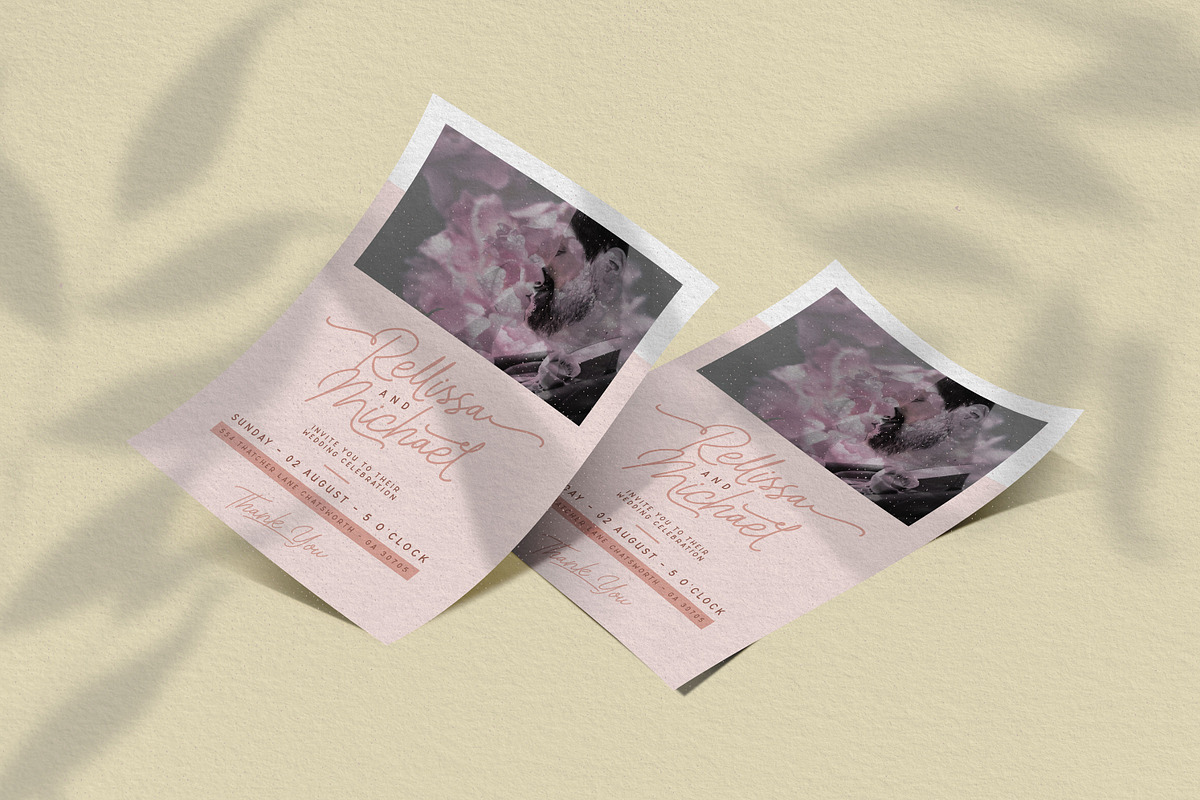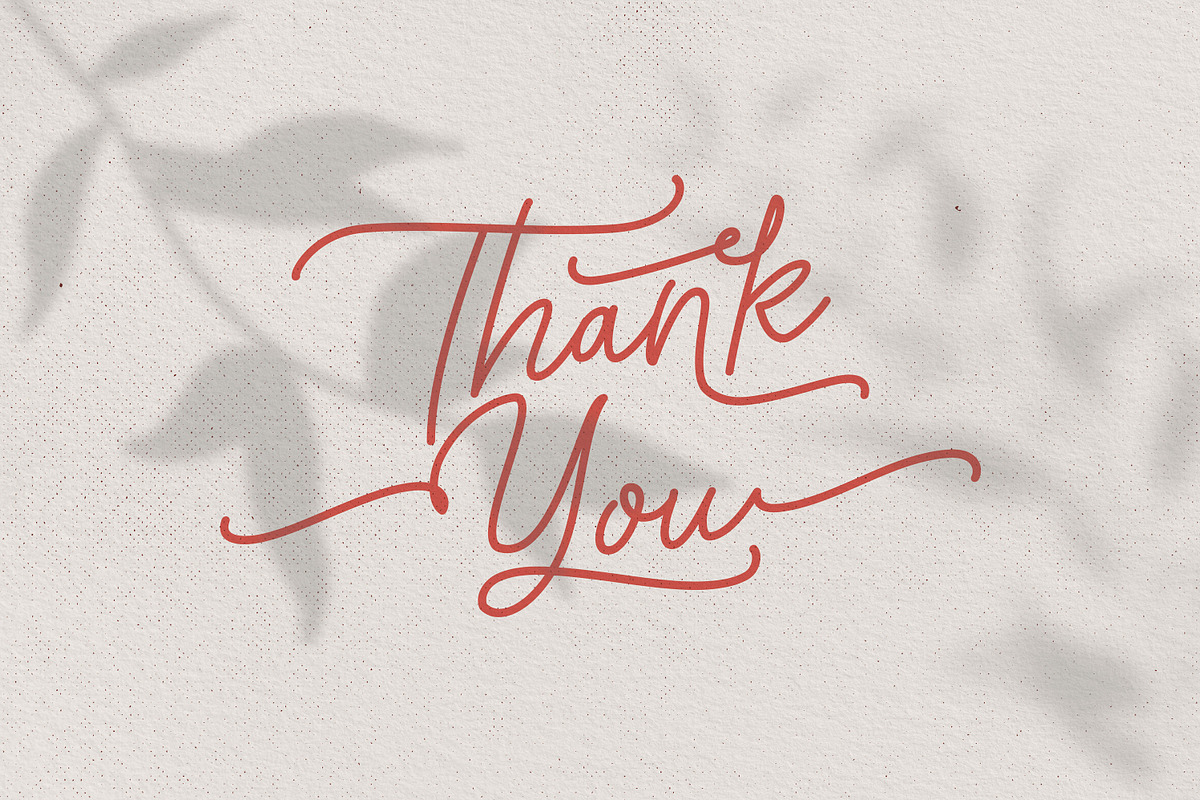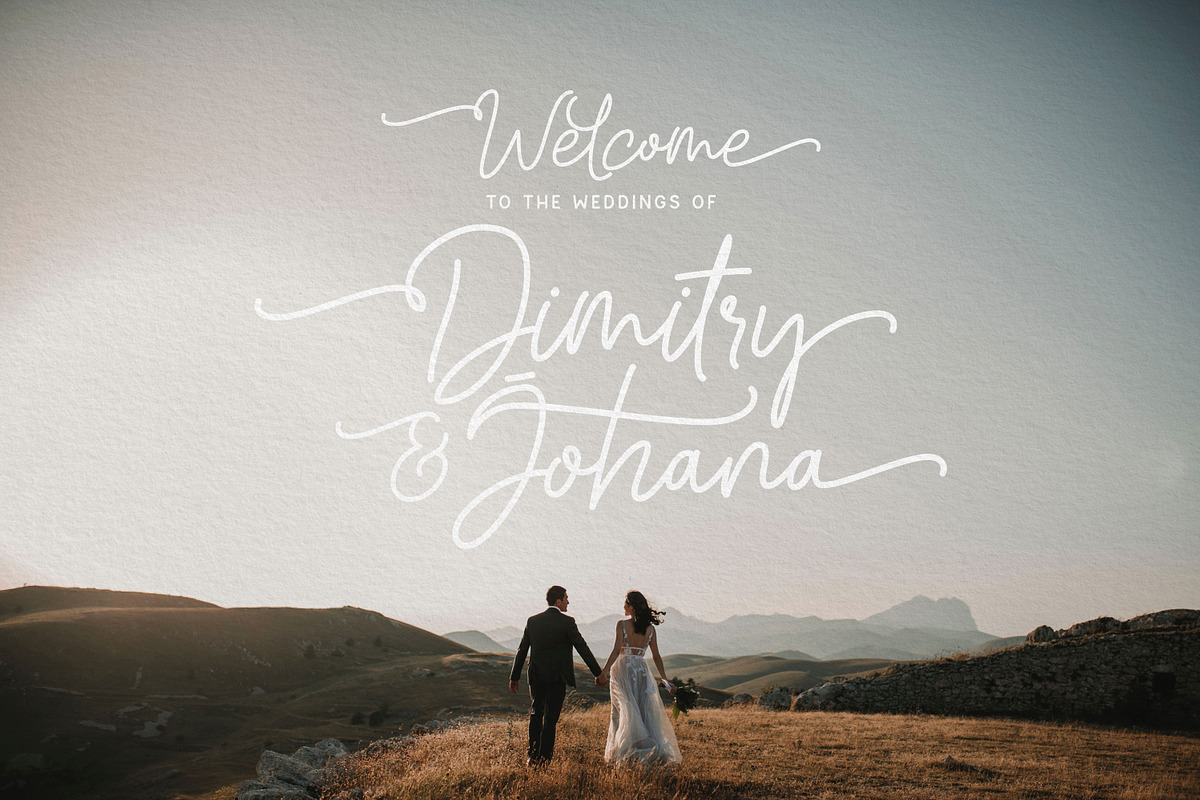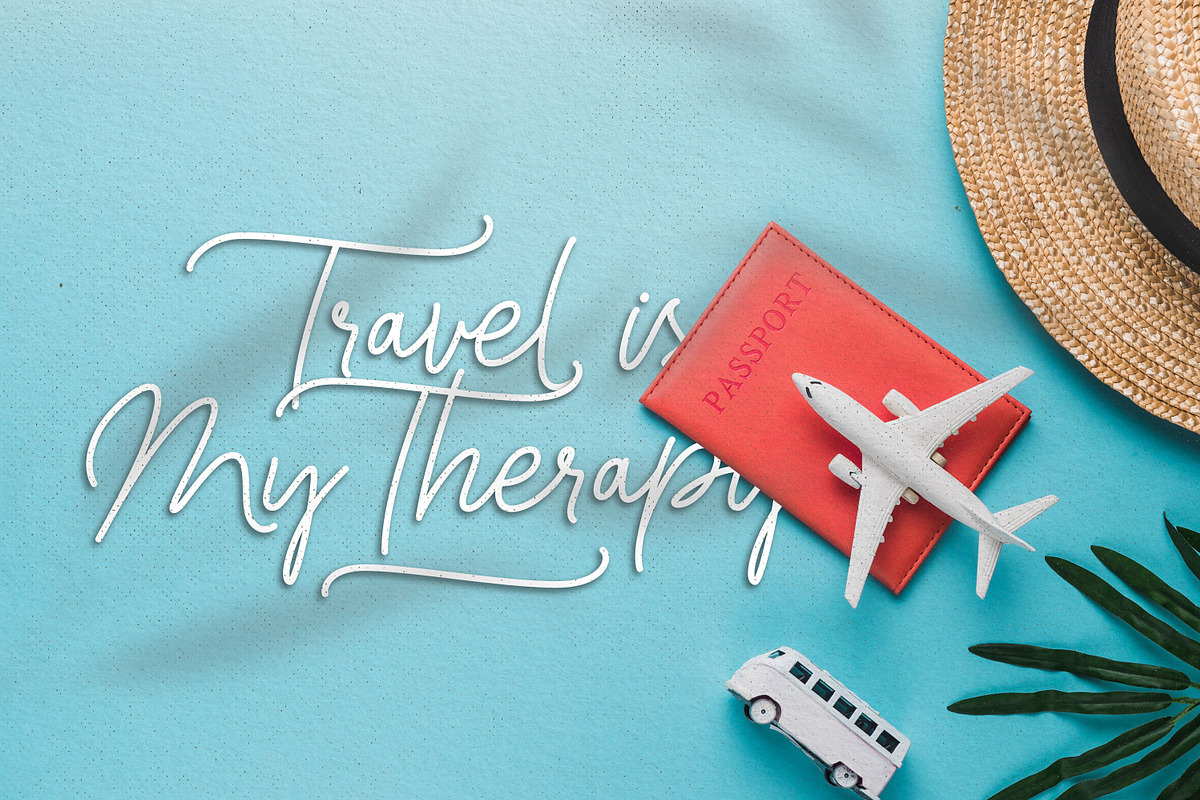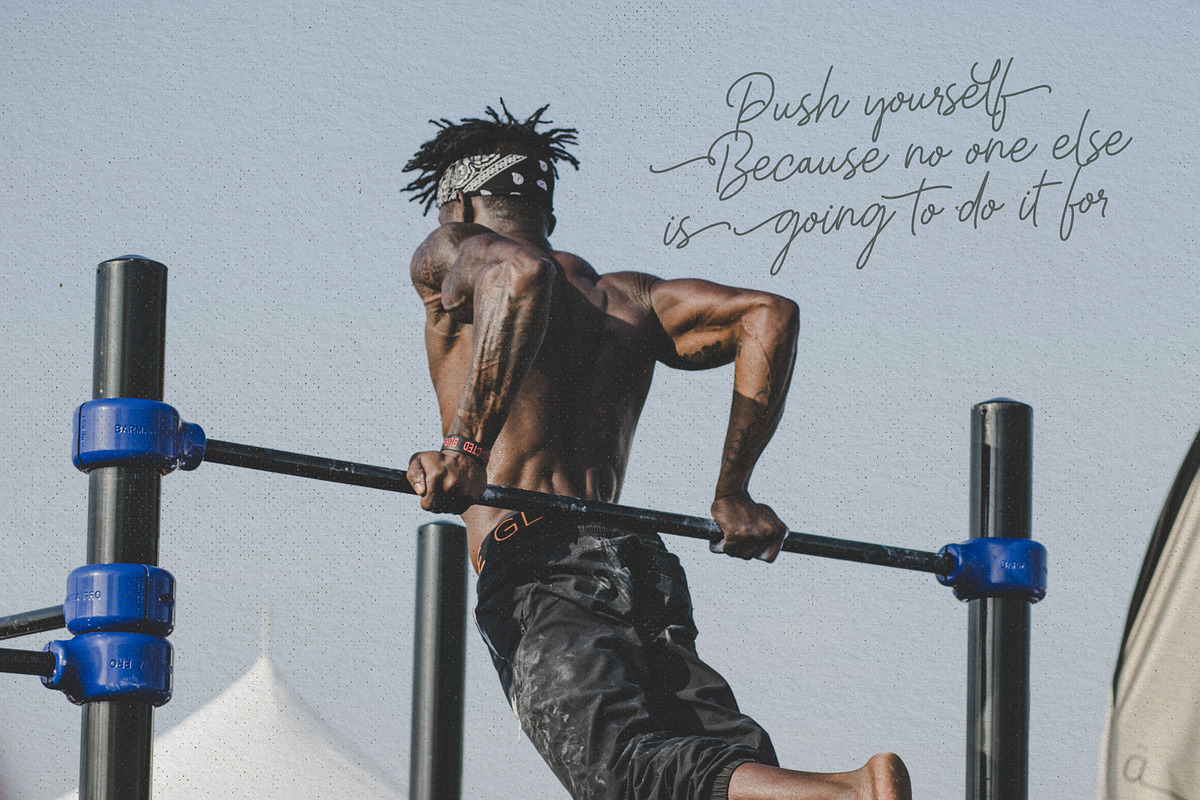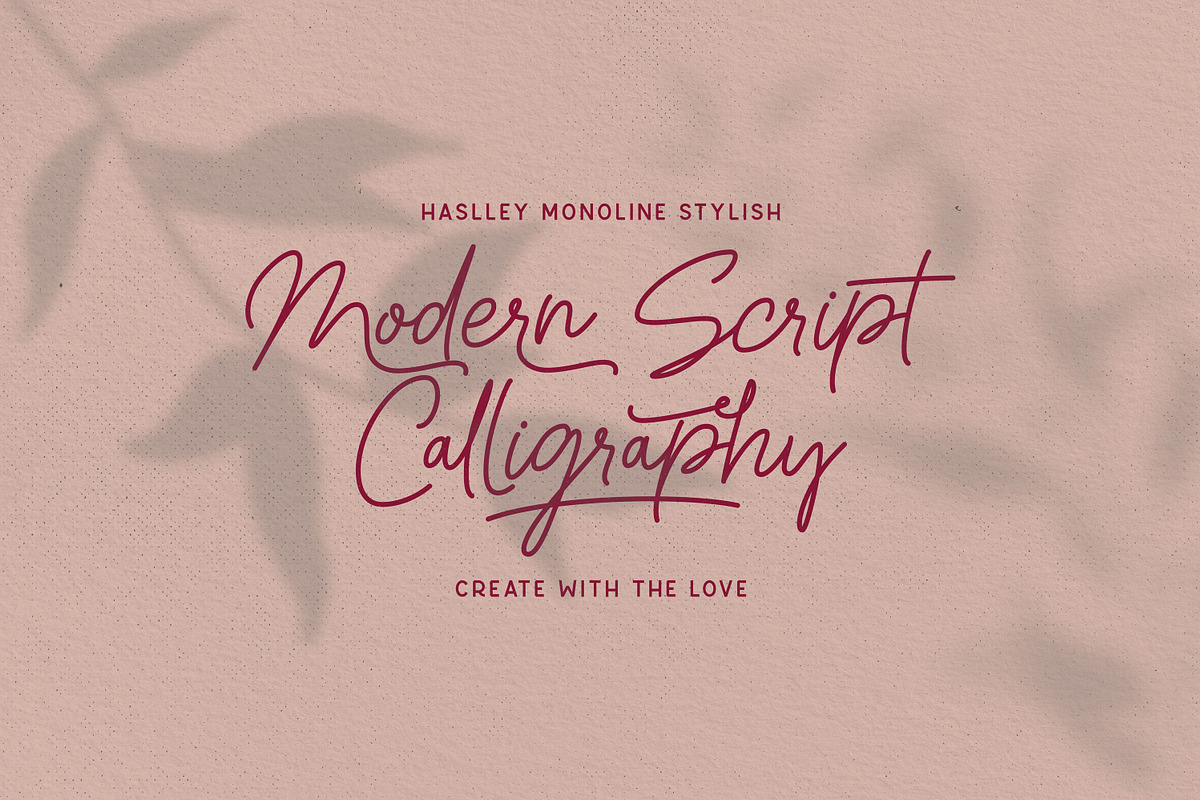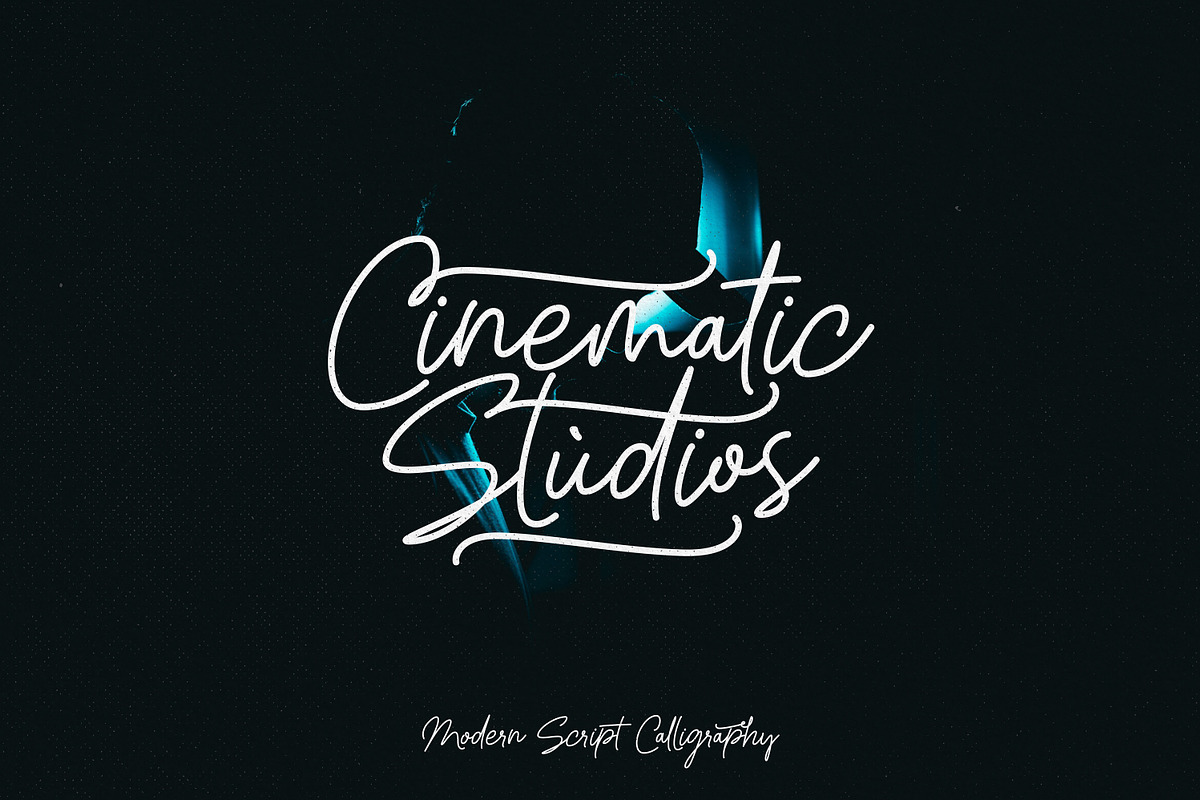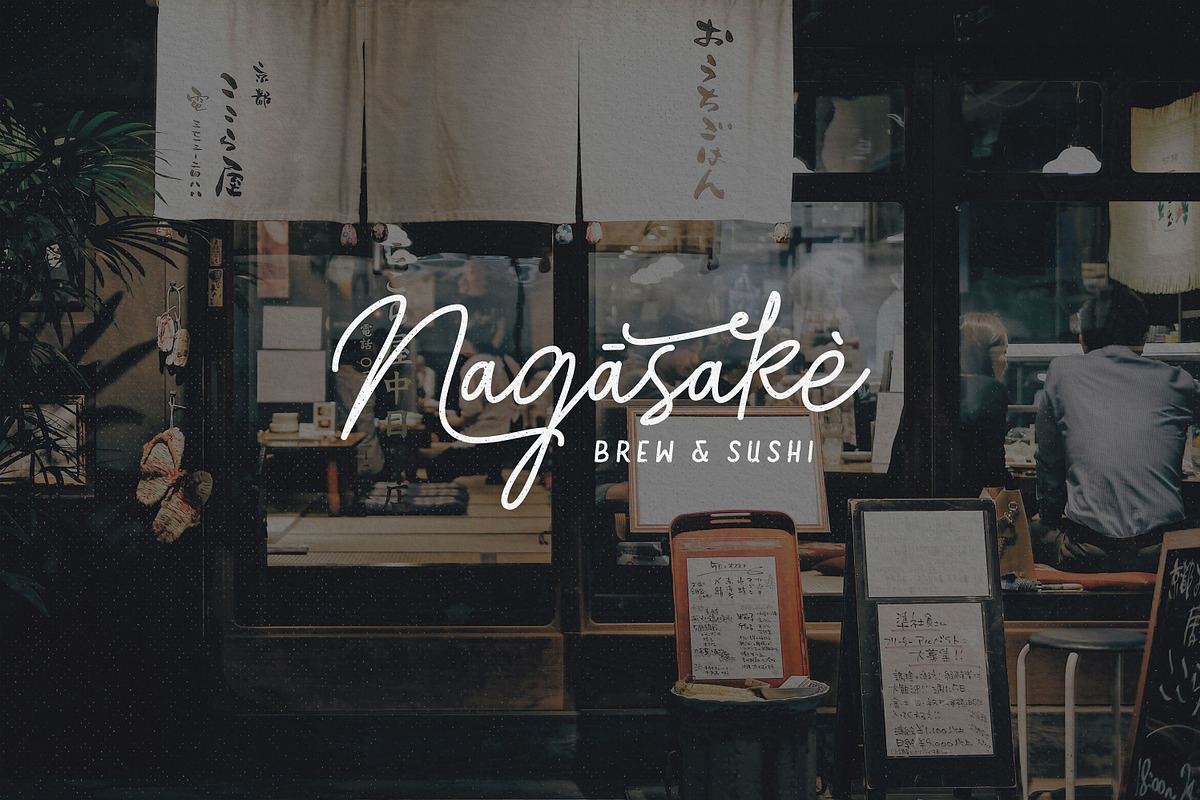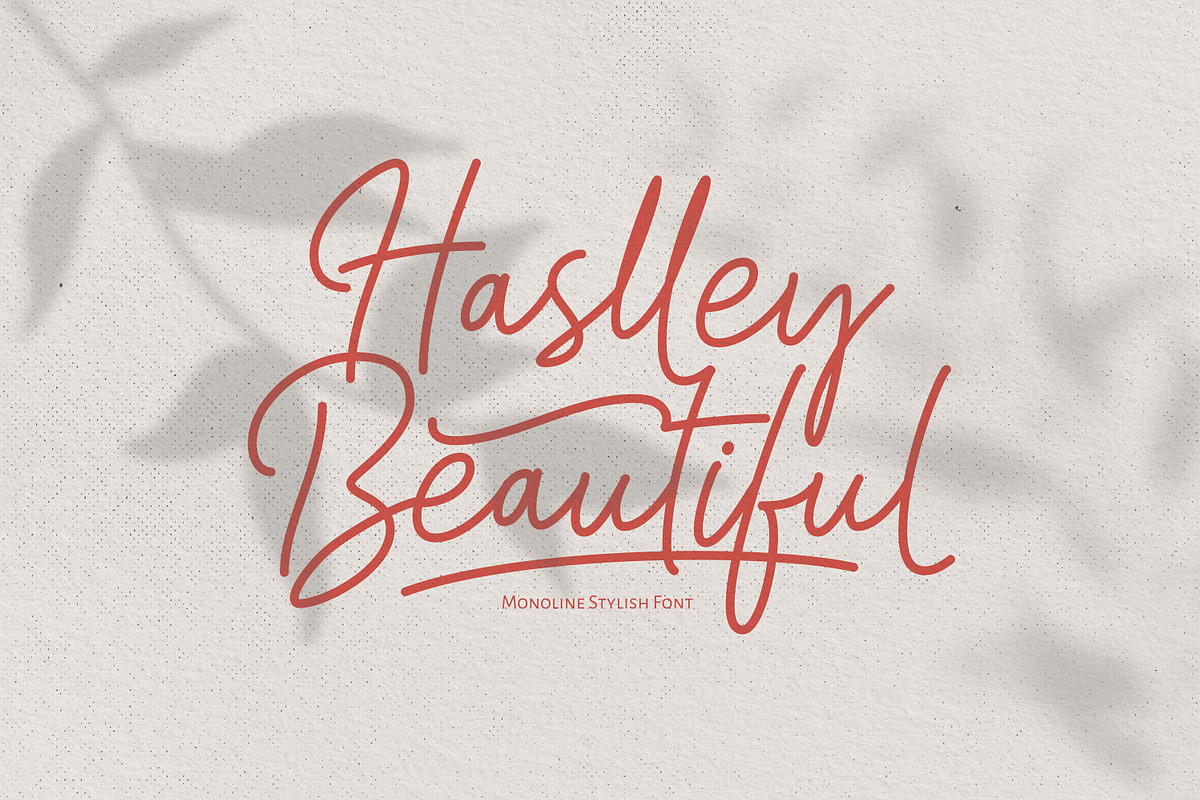
Haslley Beautiful Monoline
Introducing a new font called Haslley Beautiful Monoline Stylish Font. Haslley Beautiful Monoline Stylish Font inspired by the beautiful curves of the world, this font has 686 types of glyphs that are able to give their own creations to designers because they have many variations of different types of letters. It is suitable for creating vintage designs such as logo, posters, merchandise, clothing, brochures, business cards and others. It can be accessed by using Open Type savvy programs like Adobe Illustrator and Adobe InDesign. Features can be accessed by using Open Type save programs such as Adobe Illustrator, Adobe InDesign, Adobe Photoshop, Corel Draw X version and Microsoft Word. And this has given PUA unicode font (specially coded fonts). So that all the alternate characters Easily can be accessed in full by a Craftsman or designer.